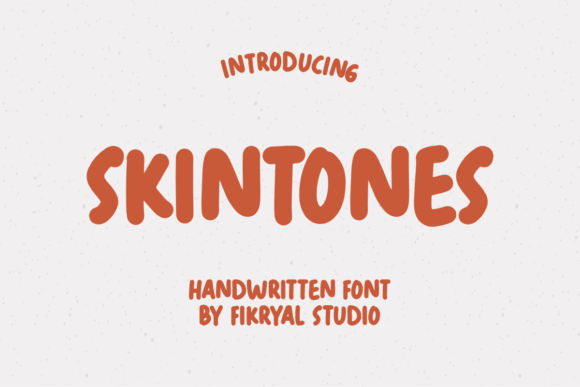
Prepare to be mesmerized by Skintones Font, a captivating display font that embodies beauty and diversity like no other. Created by the talented Fikryal Studio, Skintones Font is an exquisite handwritten masterpiece that captures the essence of natural handwriting in every stroke.
Each letter is lovingly crafted to flow seamlessly, mirroring the graceful movements of a pen on paper. Its elegant yet playful style adds a touch of magic to any project, whether it's your personal branding, eye-catching packaging, or engaging social media graphics. Skintones Font is more than just a collection of characters; it's an artistic expression that reflects the beauty of diversity. Its unique and enchanting nature will captivate your audience, leaving a lasting impression that resonates deep within.
If you're searching for a font that embodies sophistication, creativity, and a touch of whimsy, look no further than Skintones Font. It's the perfect choice for email signatures, adding a dash of personality to every message. With Skintones Font, you'll elevate your communication, ensuring that your words are noticed and remembered.
Whether you're a seasoned designer or just starting your creative journey, Skintones Font is the perfect addition to your toolkit. Its versatility knows no bounds, making it a must-have for any project that demands beauty and originality. So, embrace the captivating charm of Skintones Font and let your creativity flourish like never before!